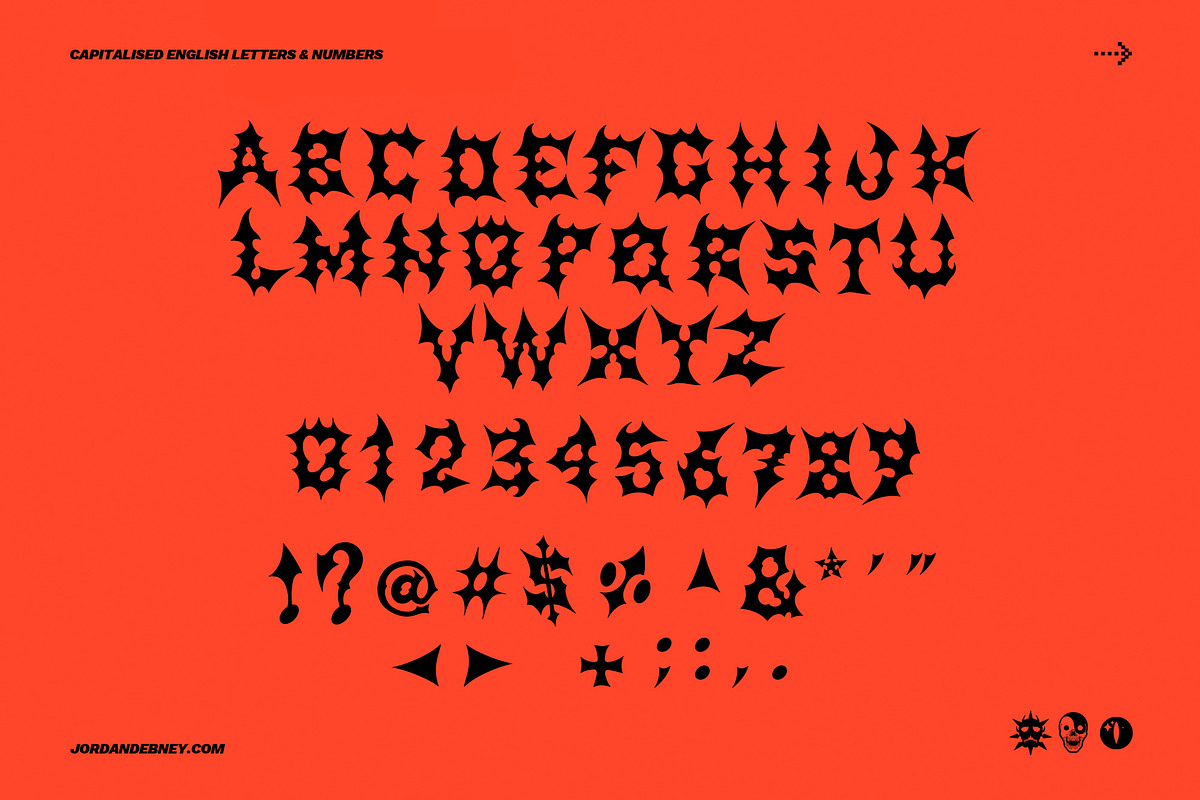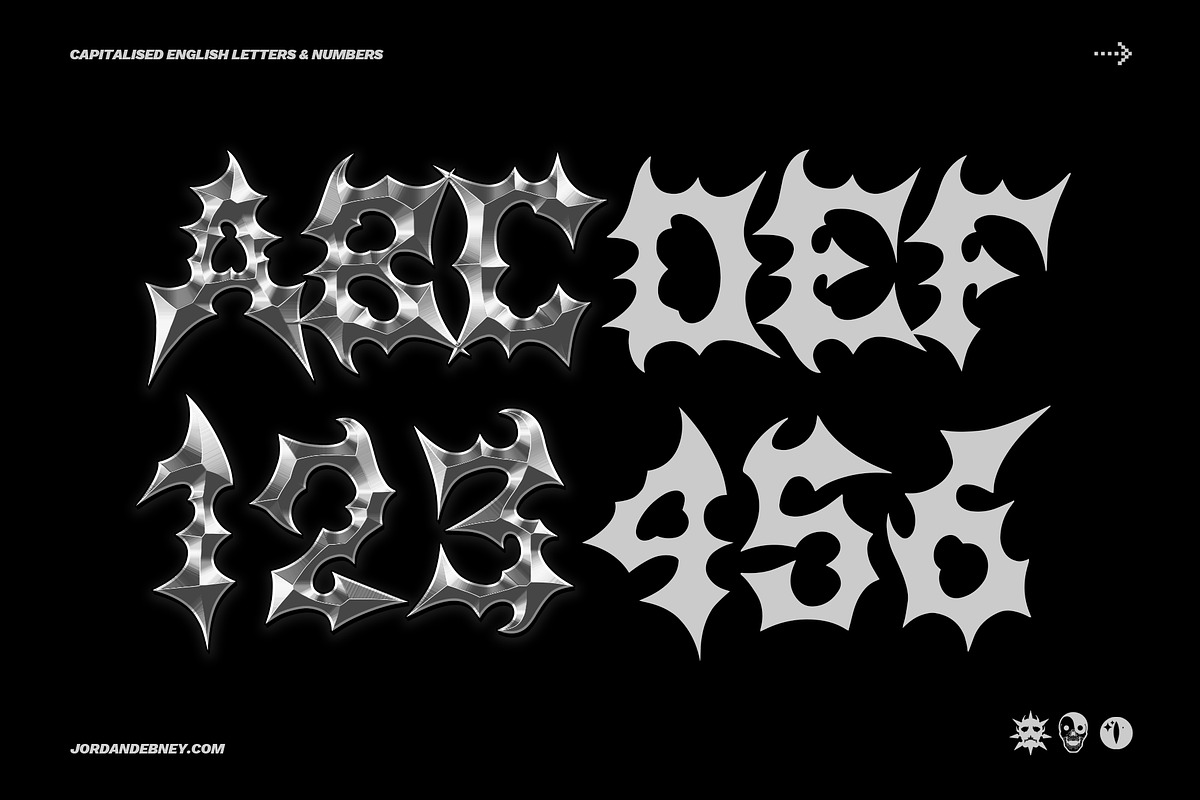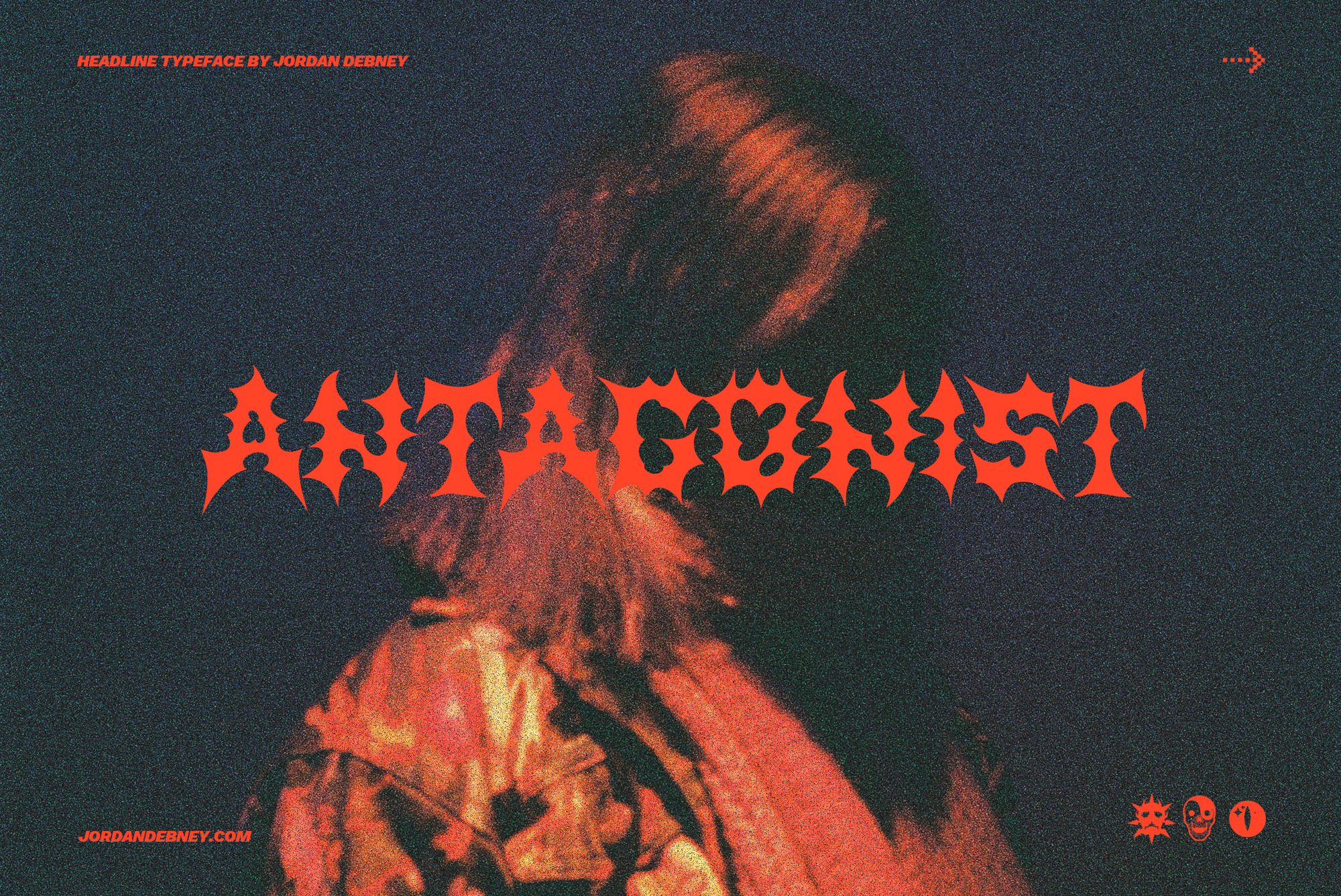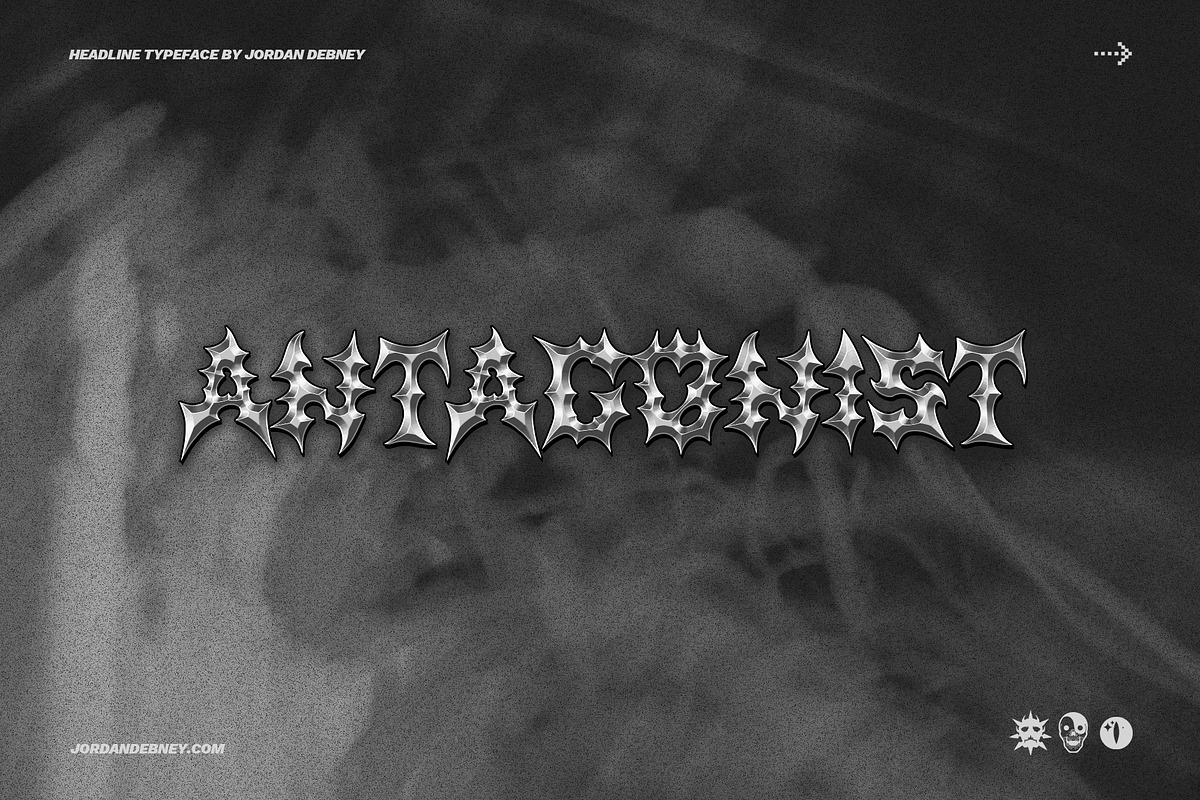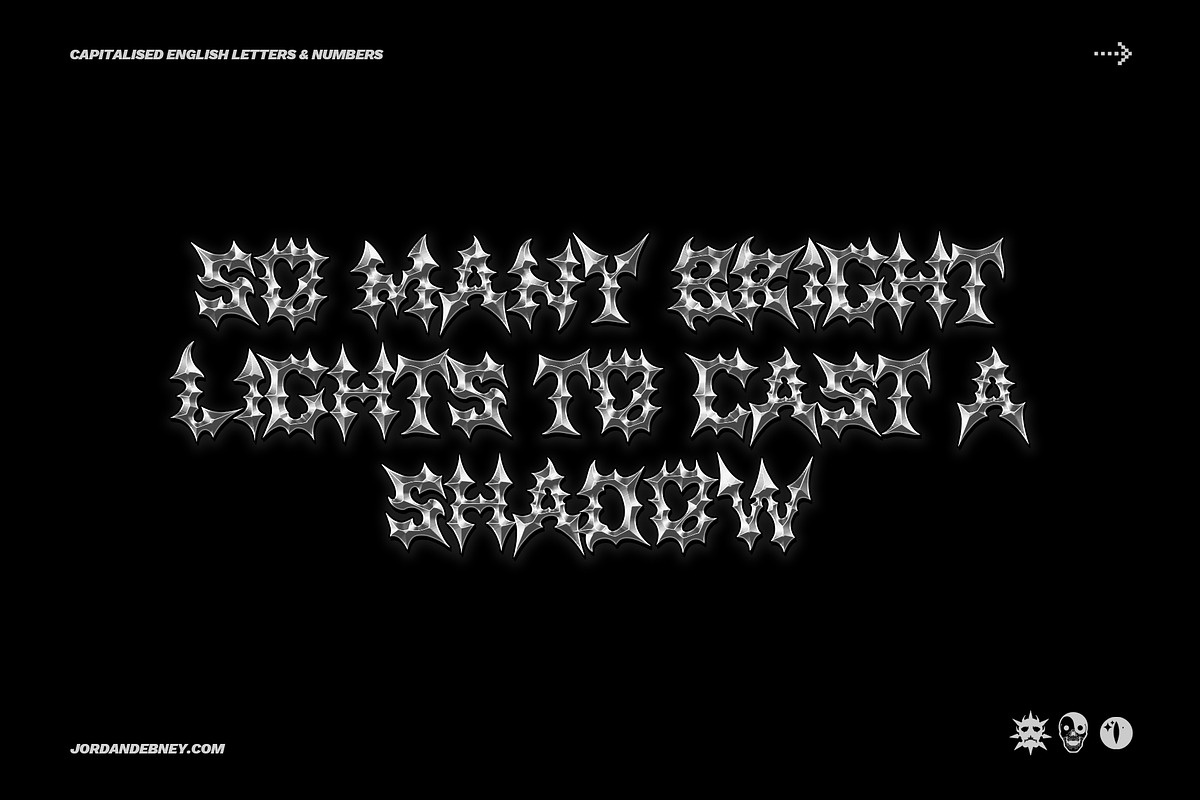
ANTAGONIST Font
ANTAGONIST IS A FIERCE & BOLD STATEMENT TYPEFACE DESIGNED FOR STREET-WEAR, GIG POSTERS OR GENERALLY ANYTHING BADASS, REFLECTING THE AESTHETICS OF THE METAL MUSIC GENRE ITSELF.
◆ HAND-DRAWN GLYPHS. ◆ INCL. CAPITALISED ENGLISH LETTERS AND NUMBERS. ◆ PURCHASE INCLUDES EASY-TO-USE PSD TO TYPE IN CHROME FOR YOURSELF.